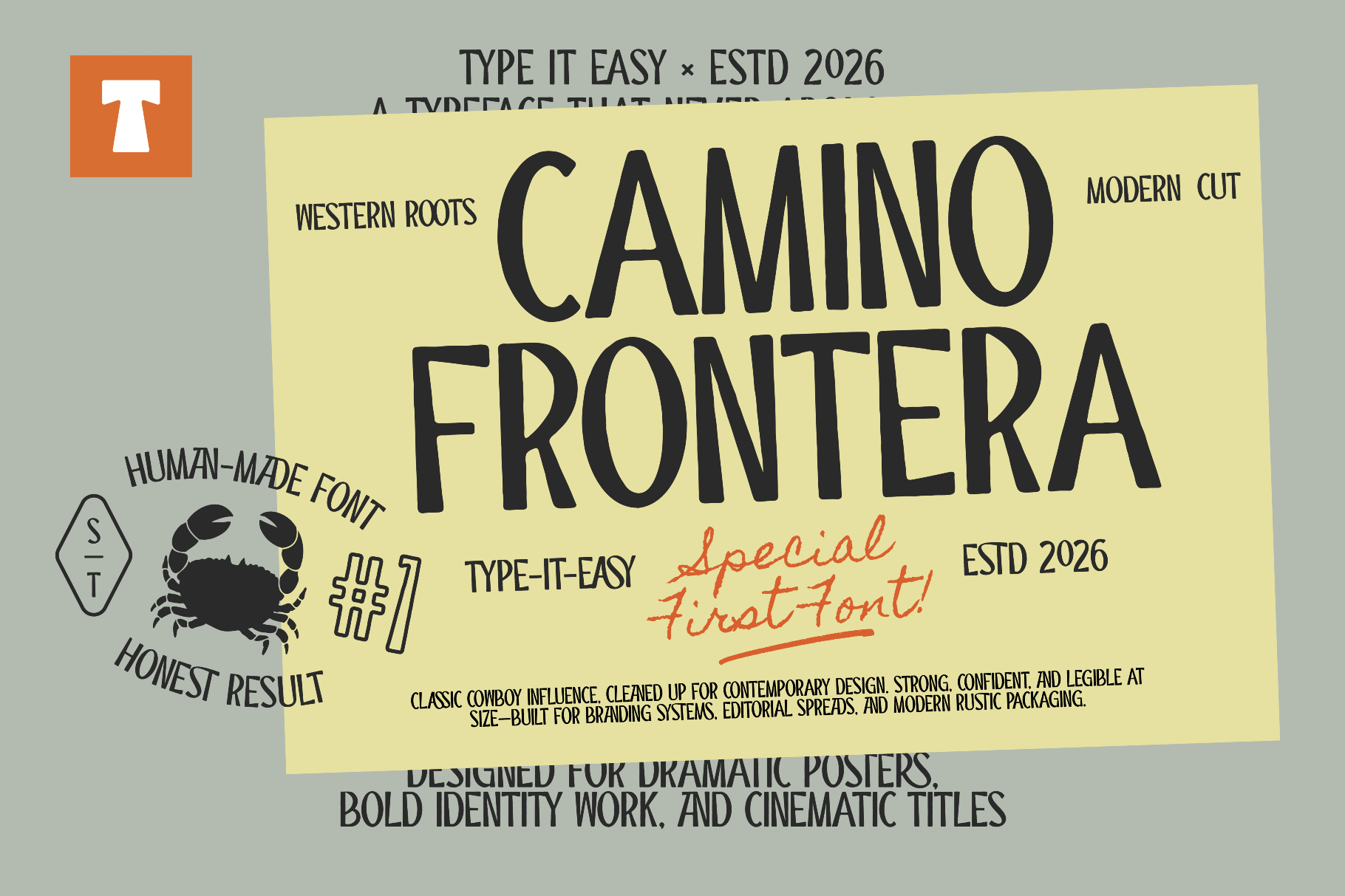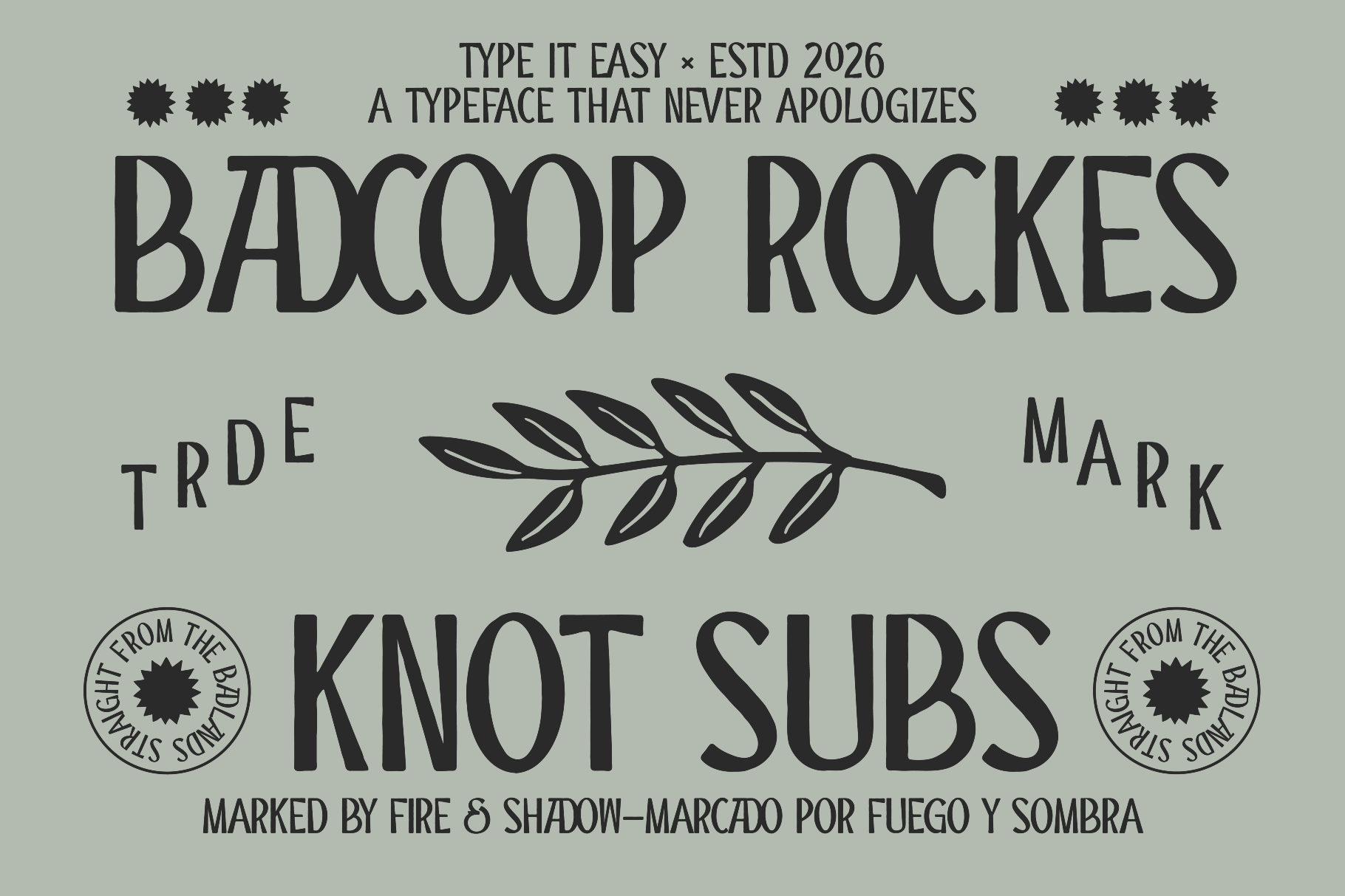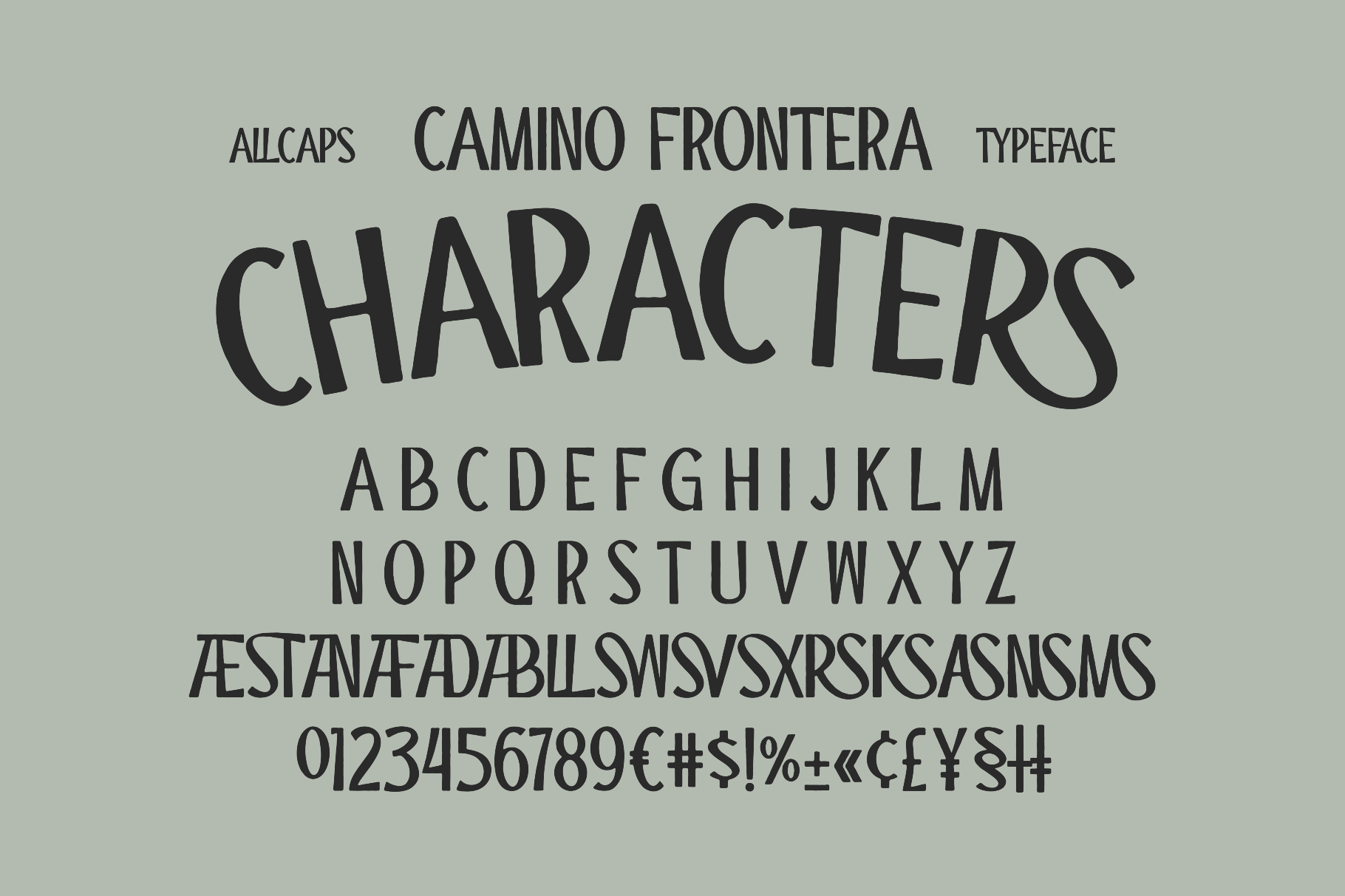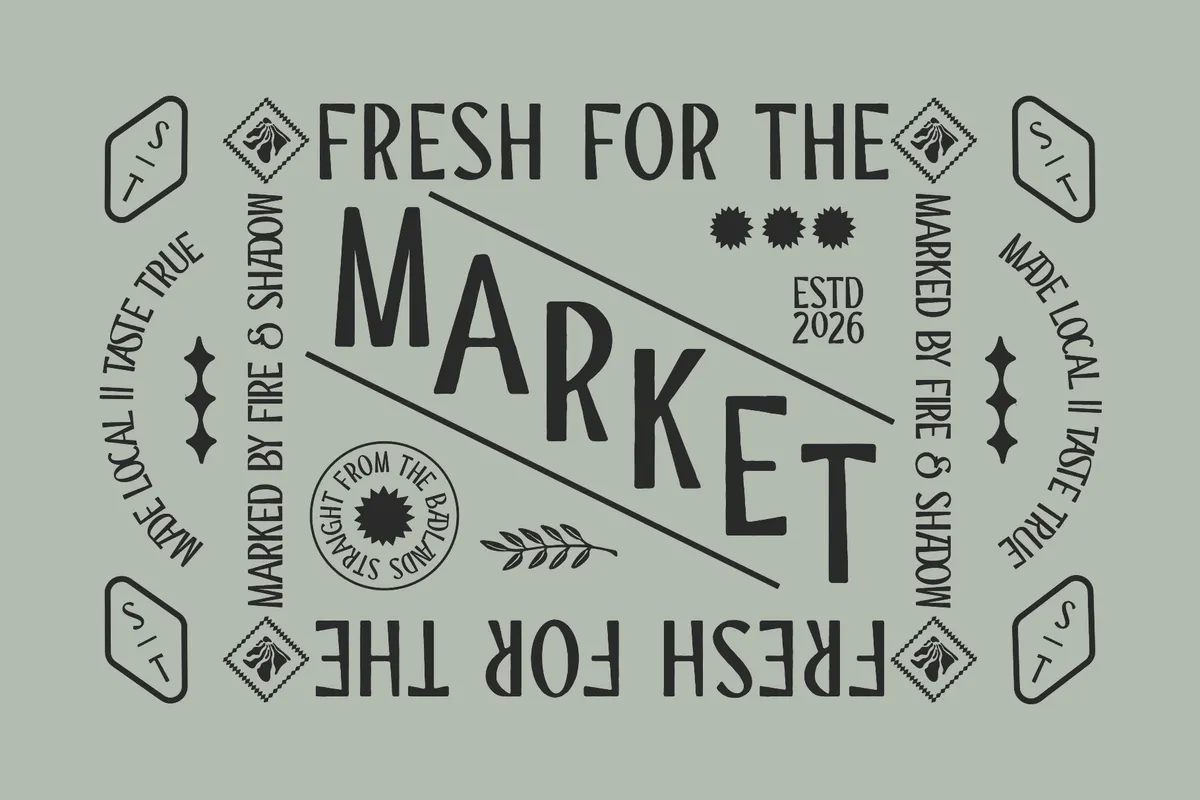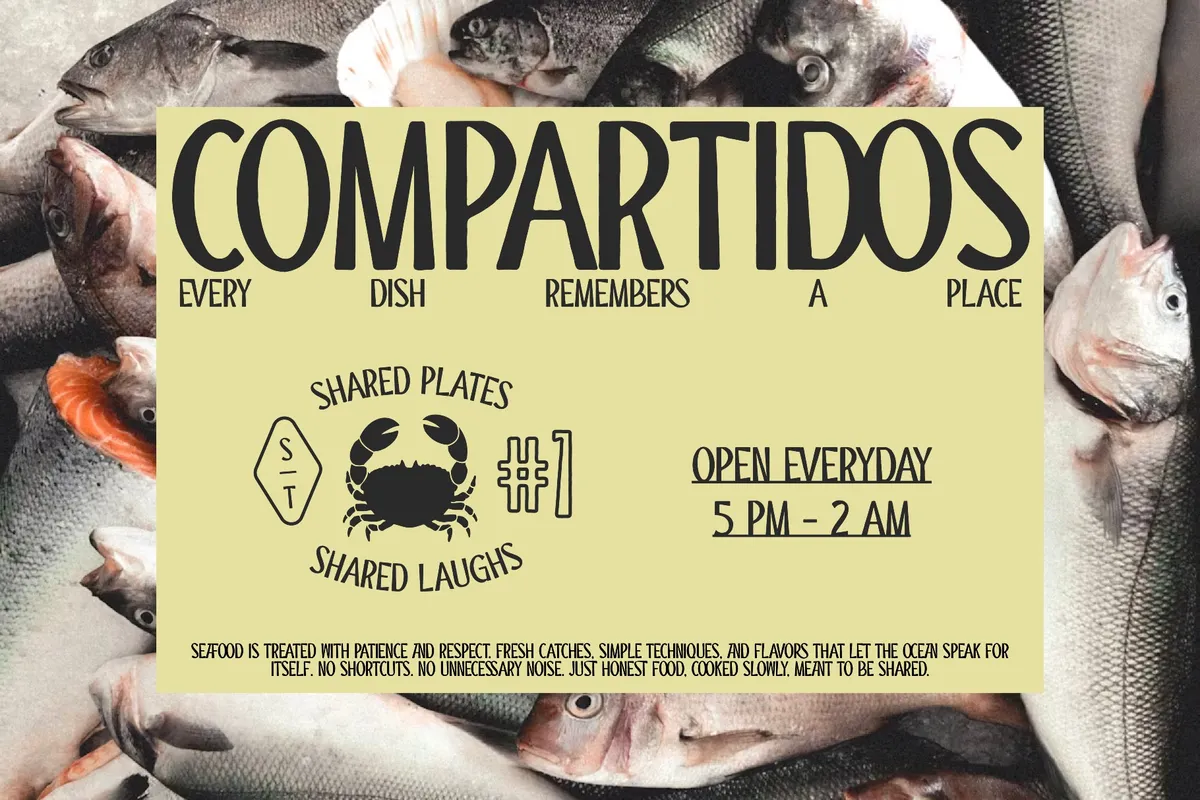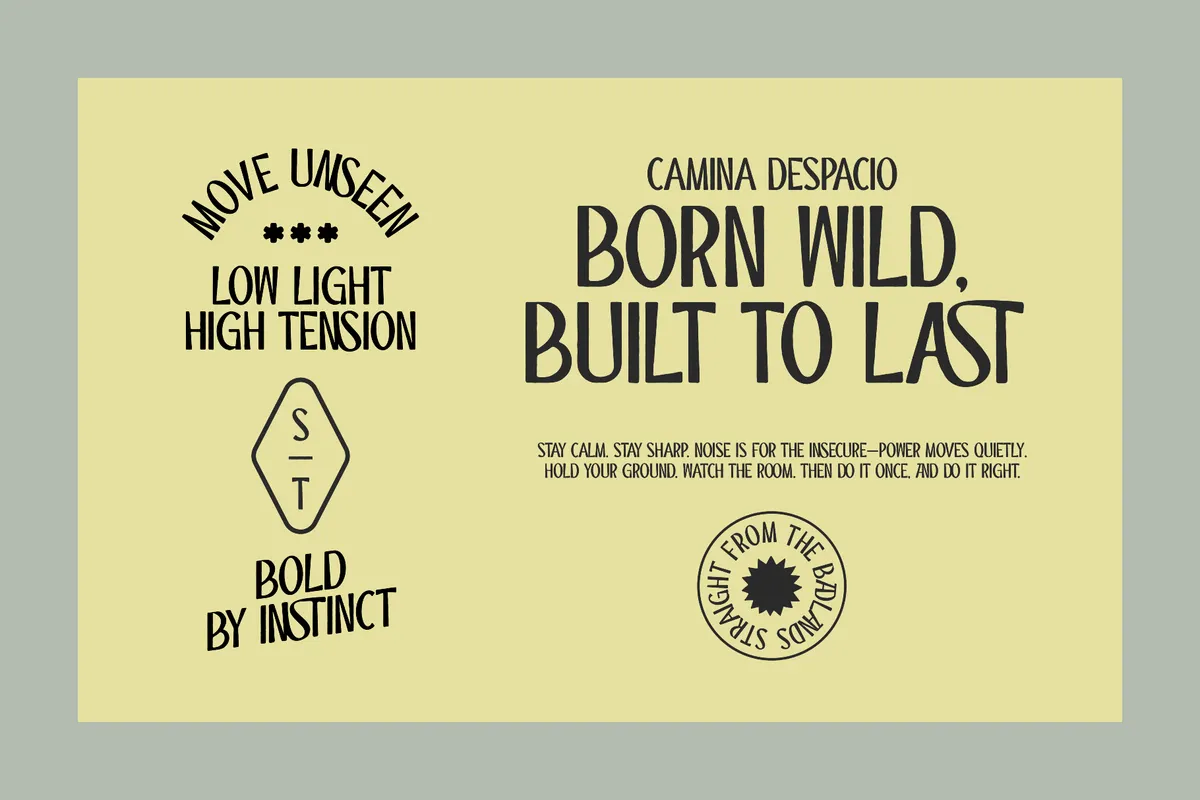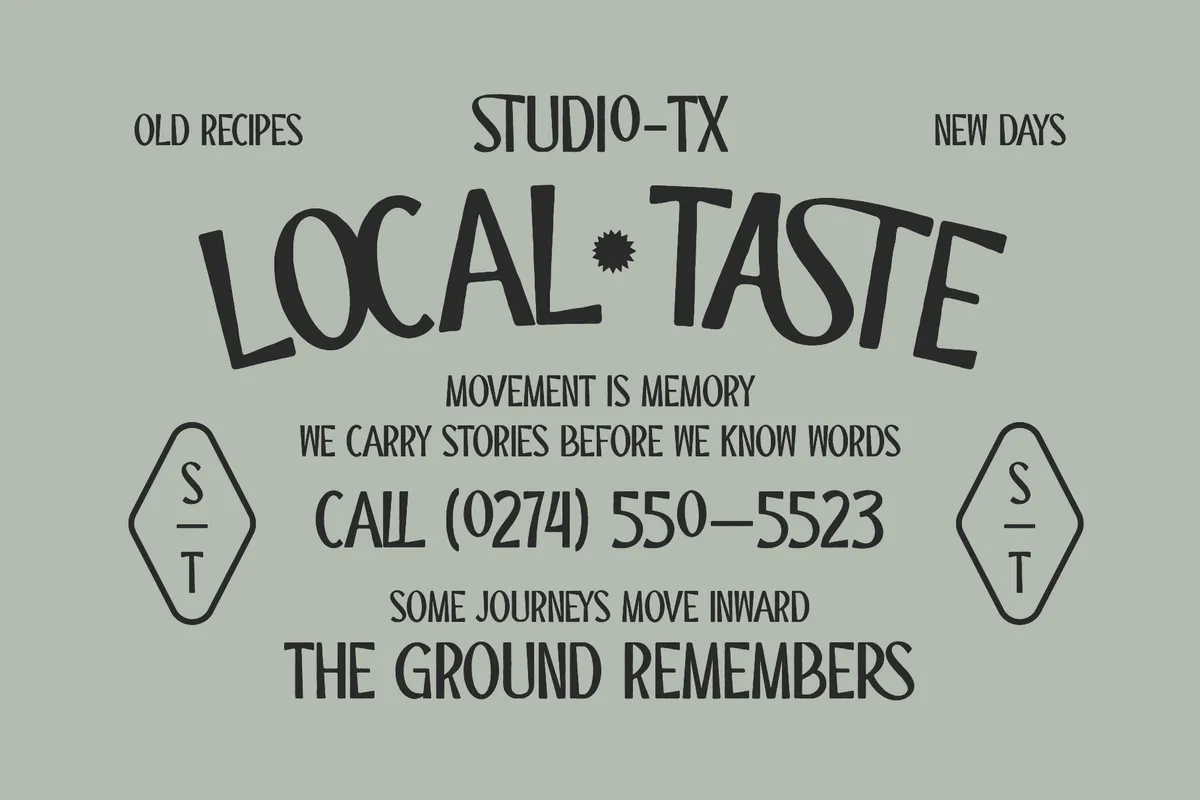
ST Camino Frontera - Modern Western Display Font
ST Camino Frontera – Modern Western Display Font is a bold all-caps typeface that reinterprets classic frontier lettering through a clean, contemporary lens. Inspired by traditional western signage and hand-painted typography, this font blends rugged personality with structured, modern proportions — making it both expressive and highly usable.
Its handcrafted character gives every word a confident, human touch, while the refined letterforms ensure clarity and balance in professional layouts. Designed for strong visual statements, ST Camino Frontera works exceptionally well in branding, packaging, editorial spreads, posters, and bold headline compositions.
This typeface captures the spirit of the wild west without feeling outdated — it’s western influence redesigned for modern creative industries. Whether you're building a rustic coffee brand, developing outdoor gear packaging, or crafting cinematic title graphics, this font delivers impact, authenticity, and style.
• All-Caps Display Typeface
• Modern Western Inspired Design
• Strong, High-Impact Letterforms
• Clean & Legible for Headlines and Large Text
• Ideal for Branding, Packaging & Posters